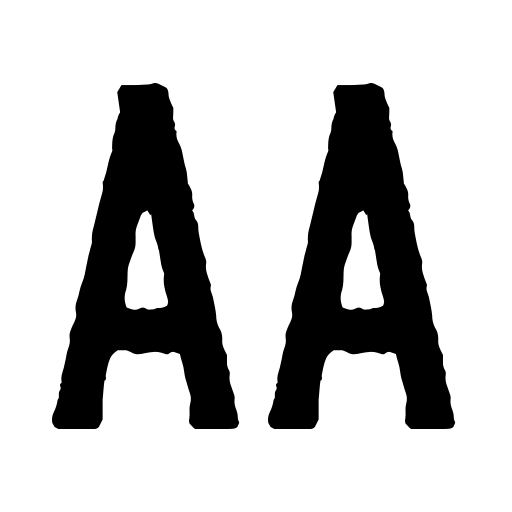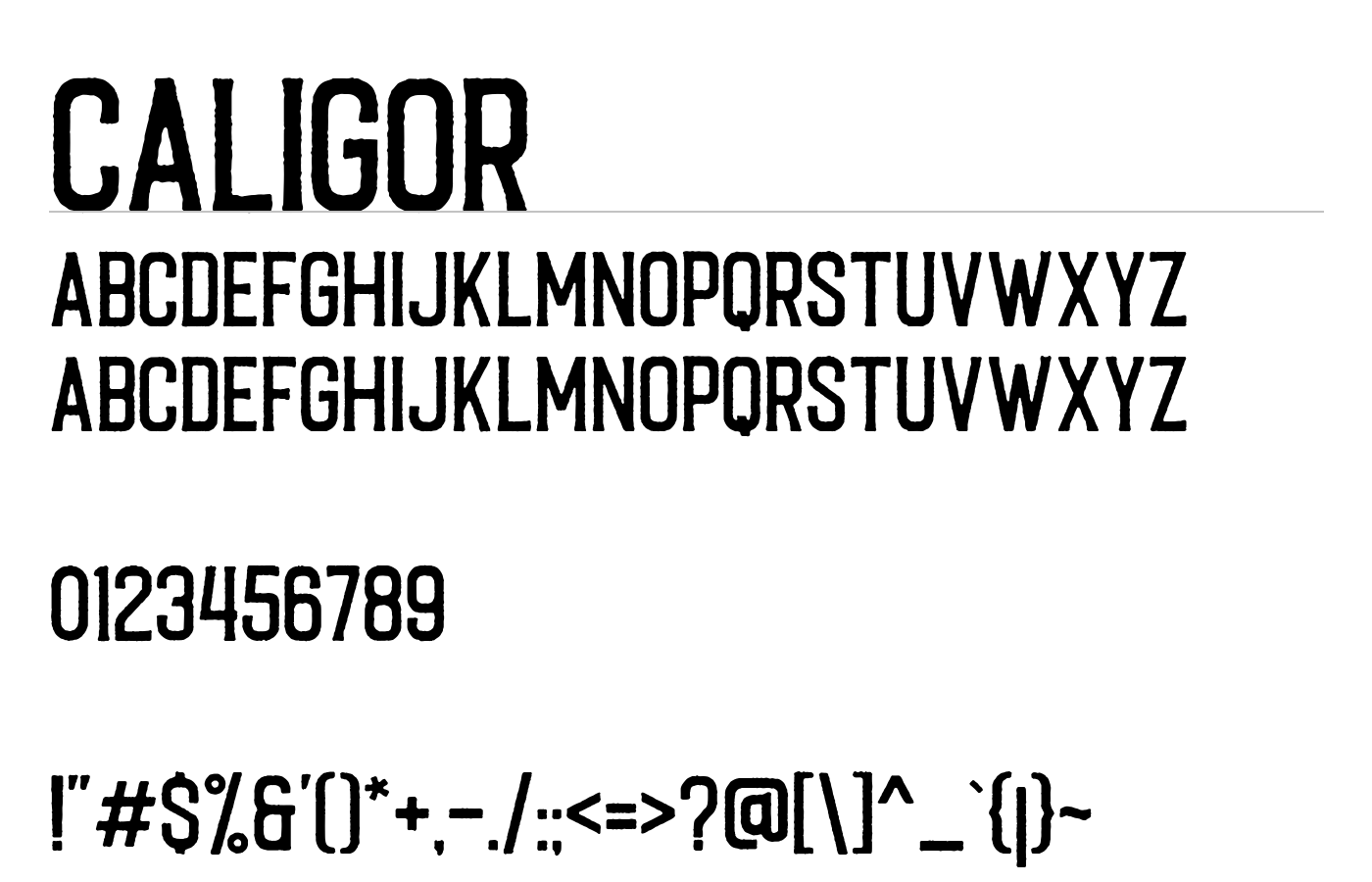
Caligor is a bold, condensed sans serif font with a slightly distressed texture that gives it a rugged, industrial feel. Its tall, narrow letterforms and strong vertical stress make it ideal for impactful headlines, logos, and branding that require a tough, vintage-inspired character. This font works great for projects seeking a bold statement with a handcrafted, authentic edge.
Caligor Font
About Caligor Font
| Font family | Caligor Font |